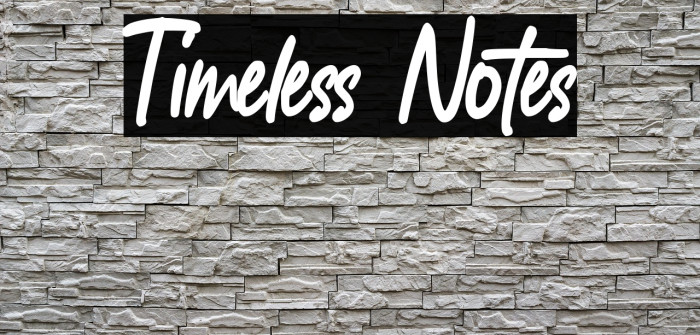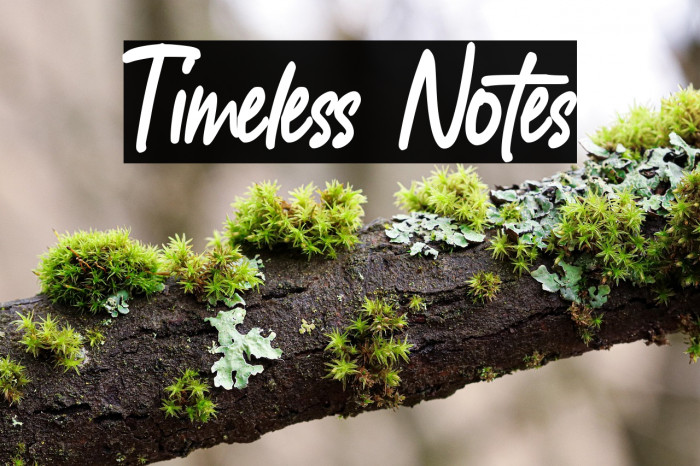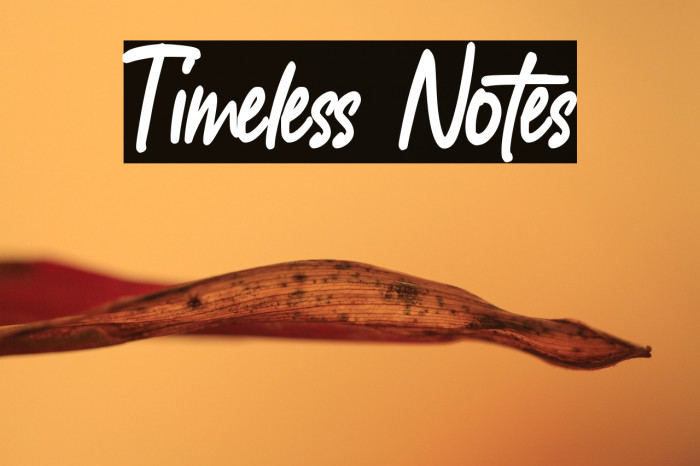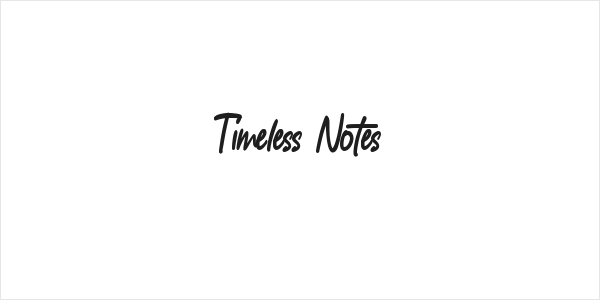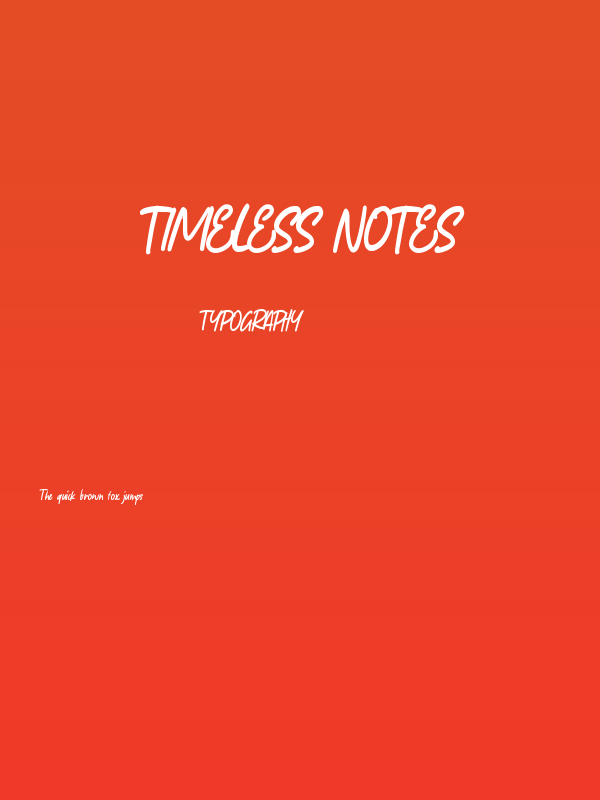
Timeless Notes Font
Timeless Notes Description
A casual, handwritten script font with energetic, flowing strokes and a natural, informal appearance. The characters are slightly slanted and vary in thickness, mimicking authentic handwriting.
| Overall Style | Casual, Modern, Handwritten |
| Use Case | Personal notes, Invitations, Informal branding, Social media posts |
| Proposed Projects | Personal notes, greeting cards, invitations, branding for creative businesses, social media graphics. |